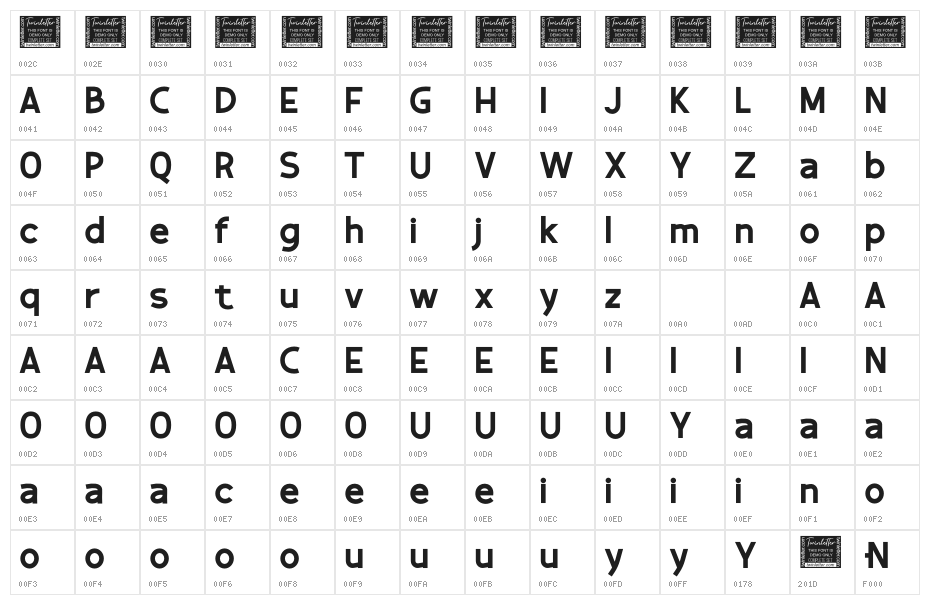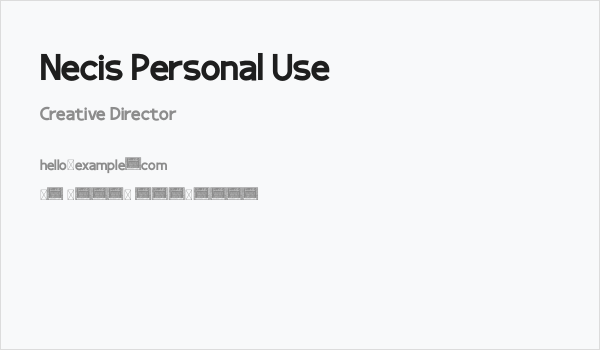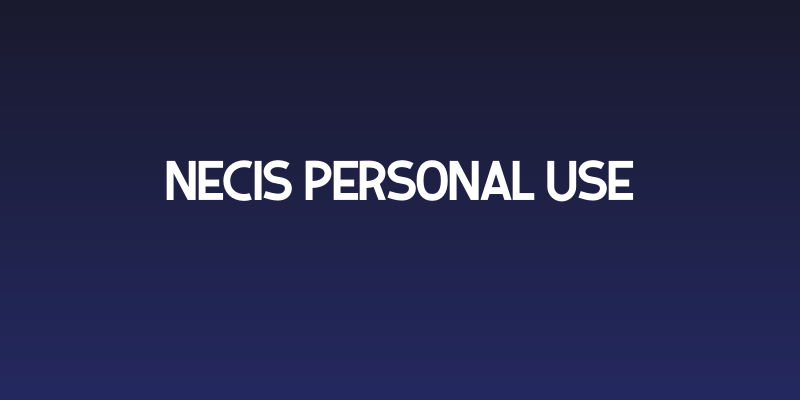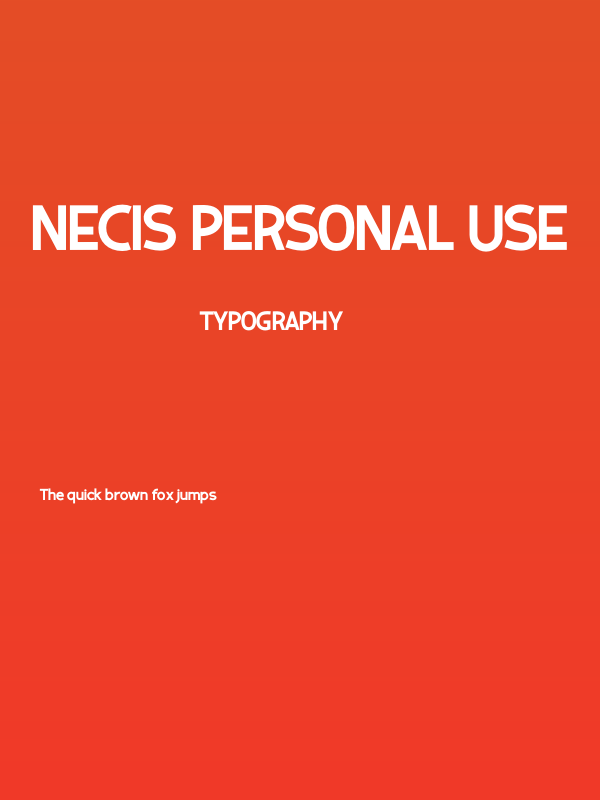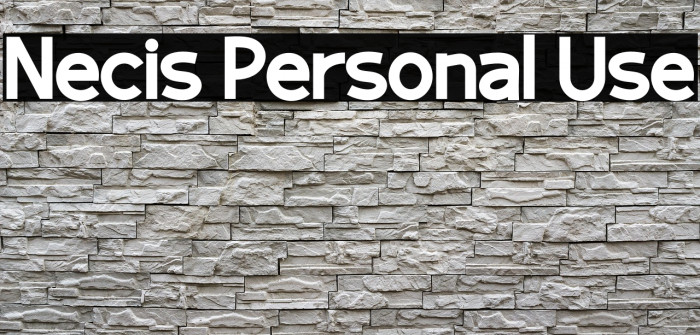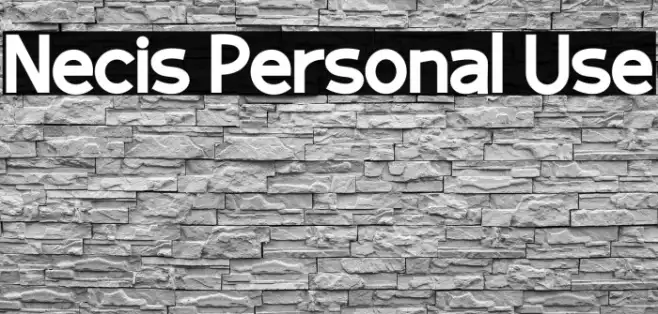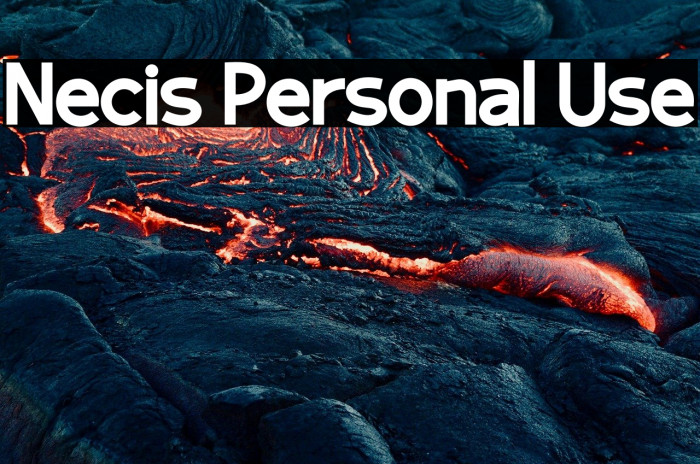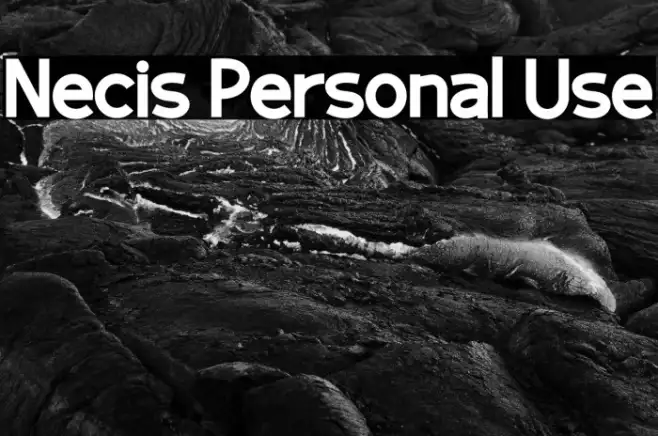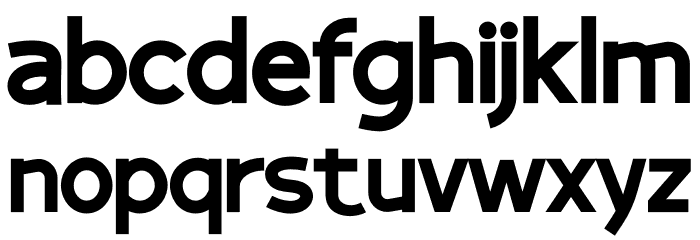
Necis Personal Use Font
Necis Personal Use Description
This typeface features a bold and modern aesthetic with clean lines and a geometric structure. The uppercase and lowercase letters maintain a consistent width, creating a harmonious and balanced appearance. The characters are well-defined, with a slight curvature on certain letters like 'a', 'e', and 's', adding a touch of softness to the overall design. The numerals are clear and legible, matching the style of the alphabet. Special characters are included, maintaining the same bold and structured look. This font is versatile, suitable for various design applications where a strong and contemporary feel is desired.